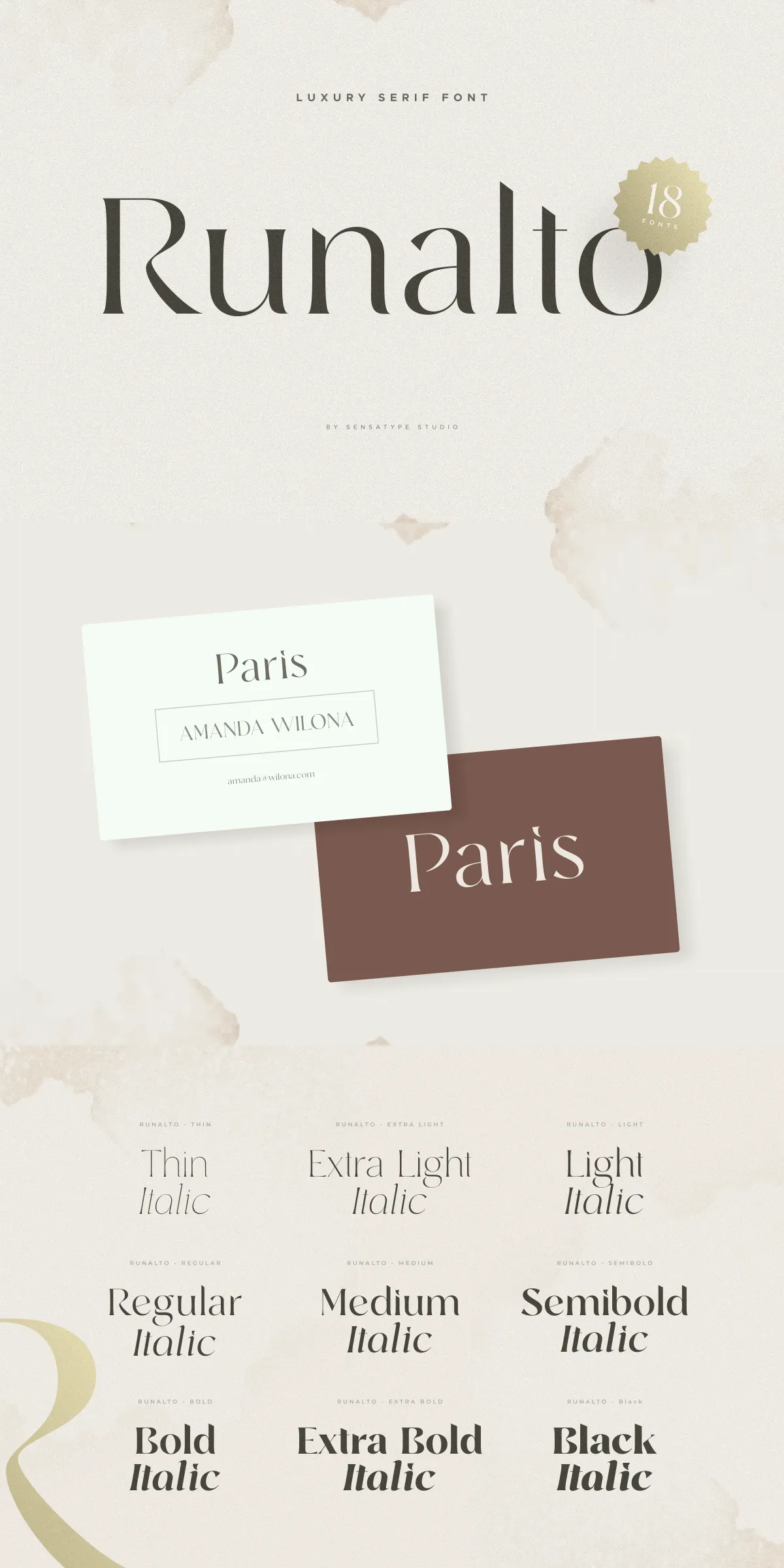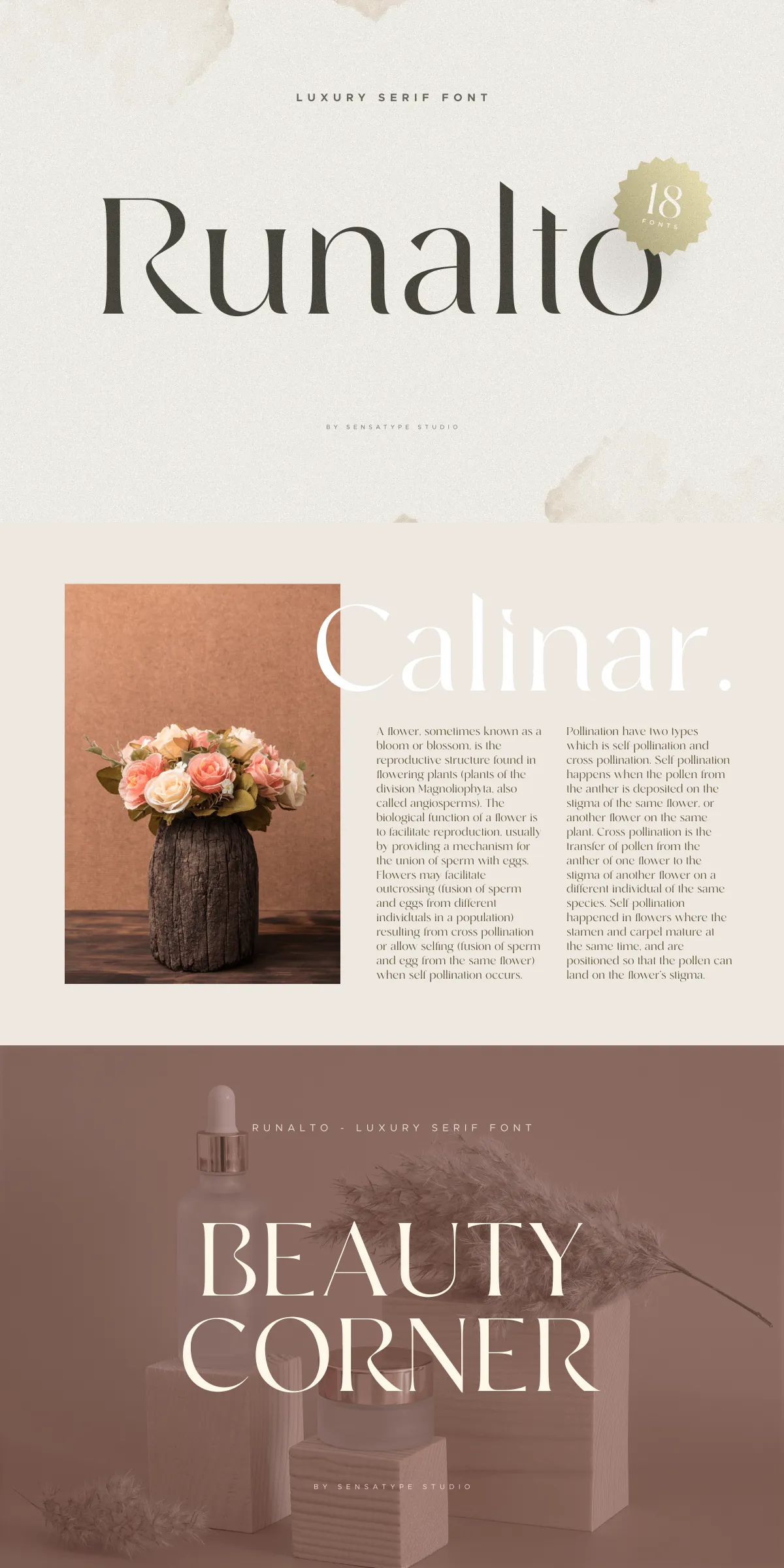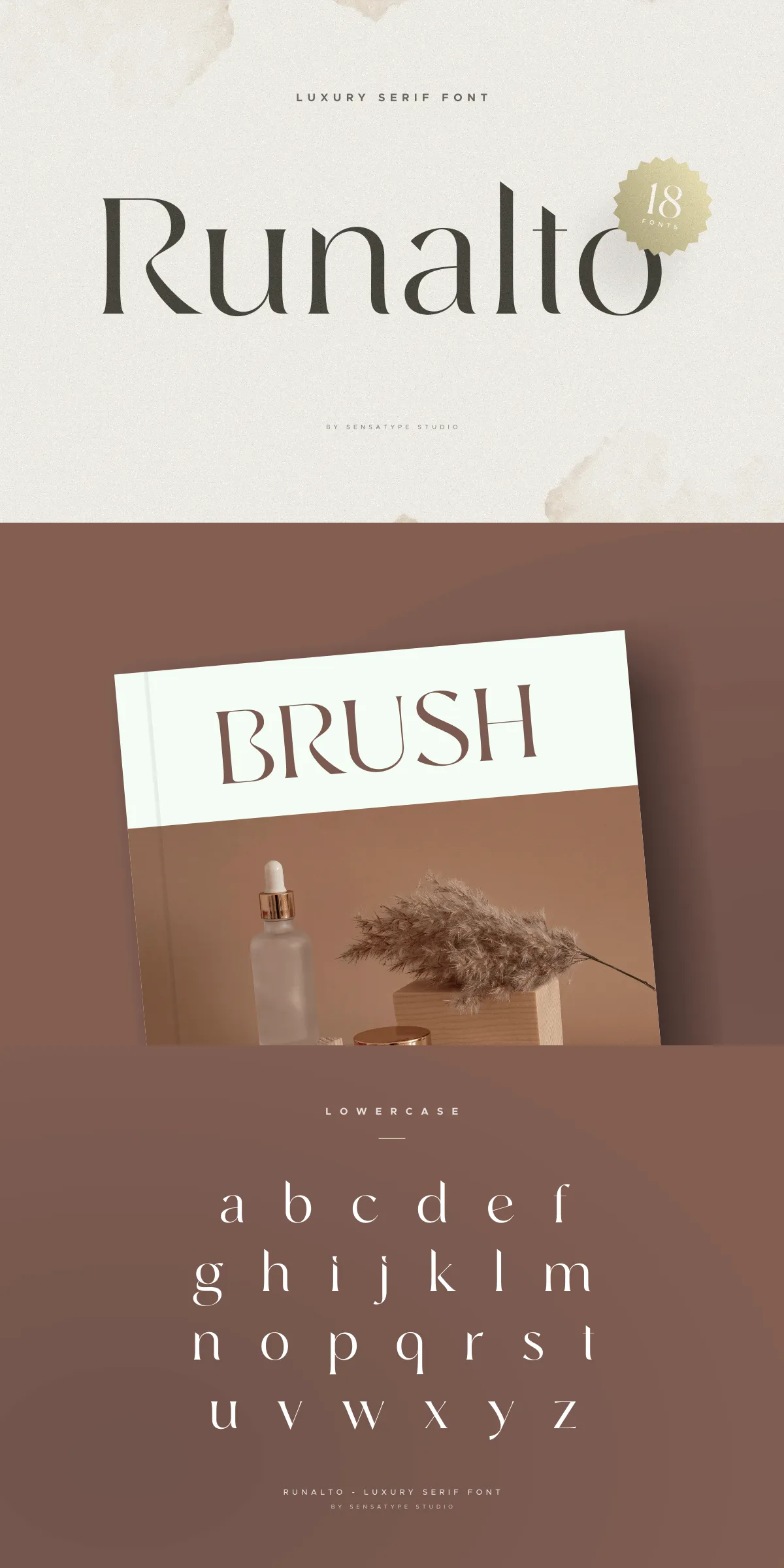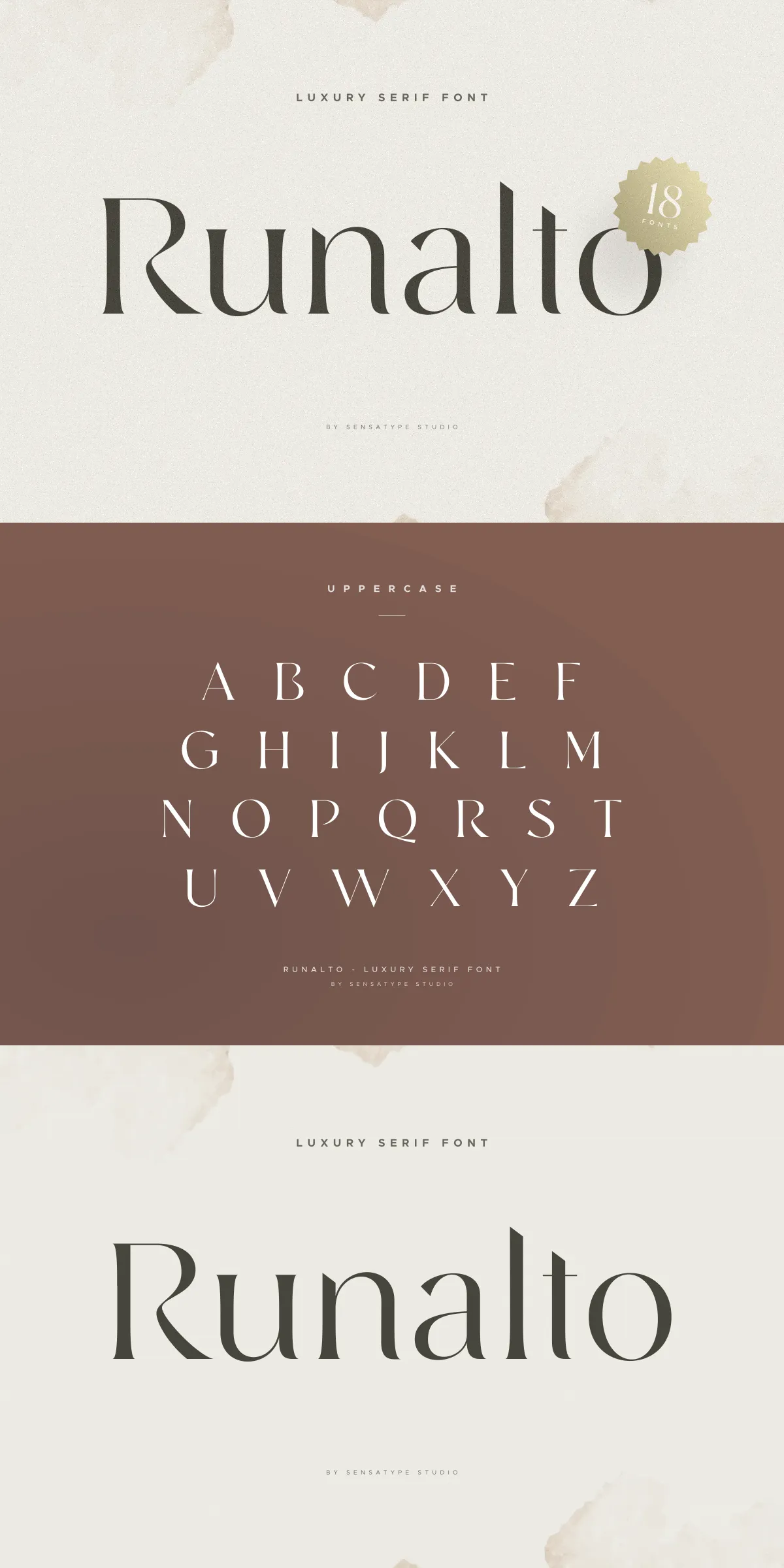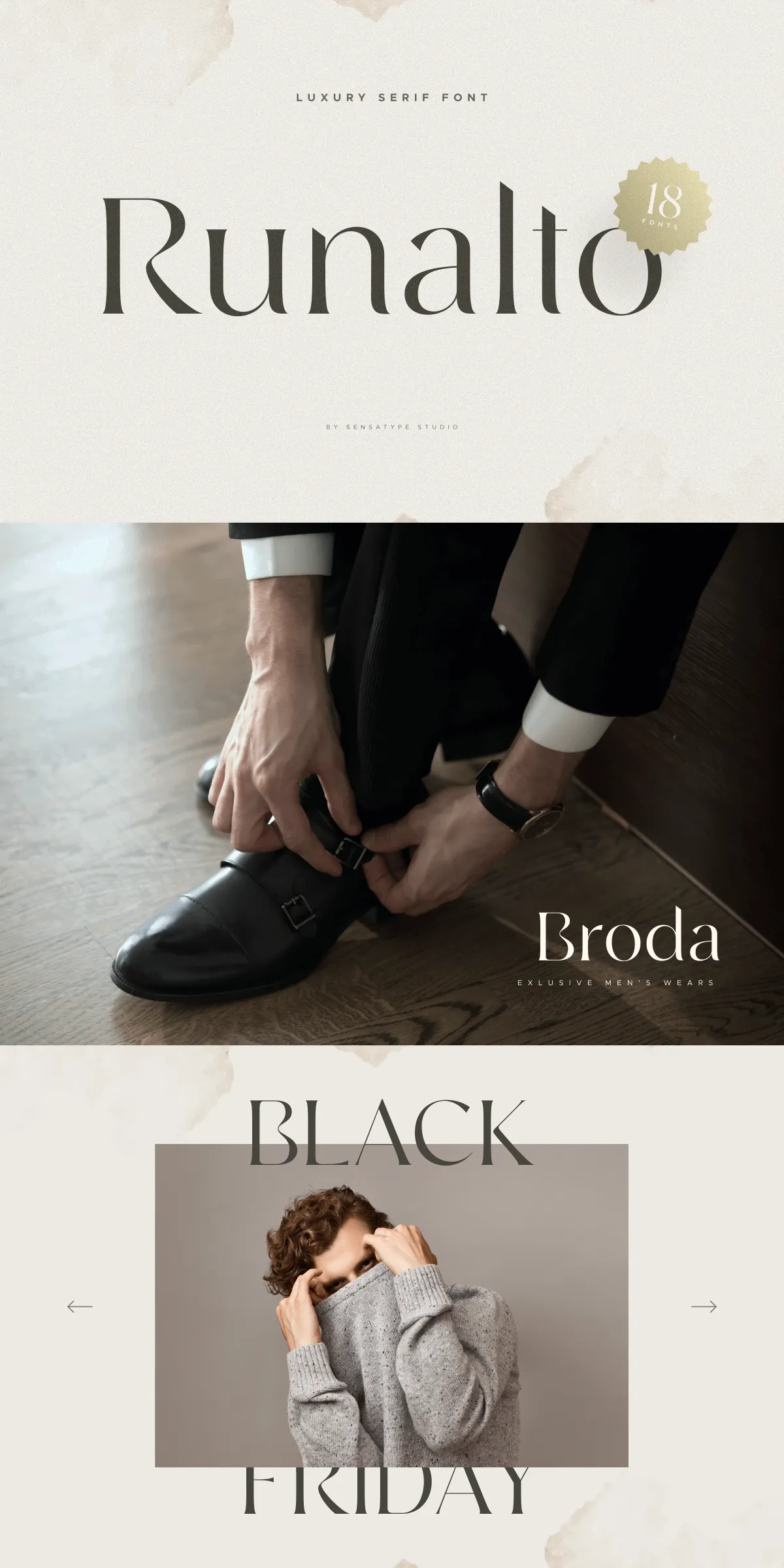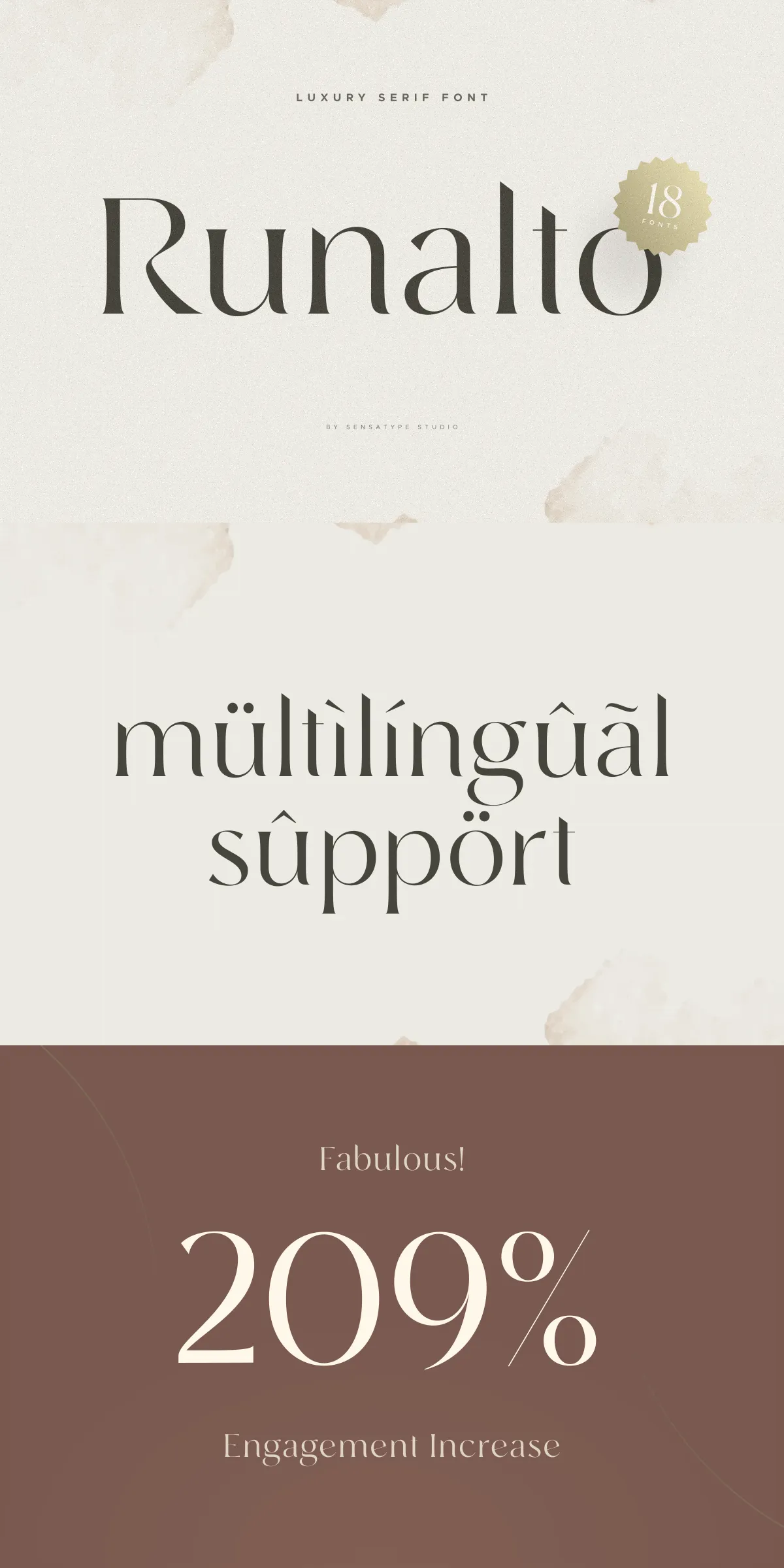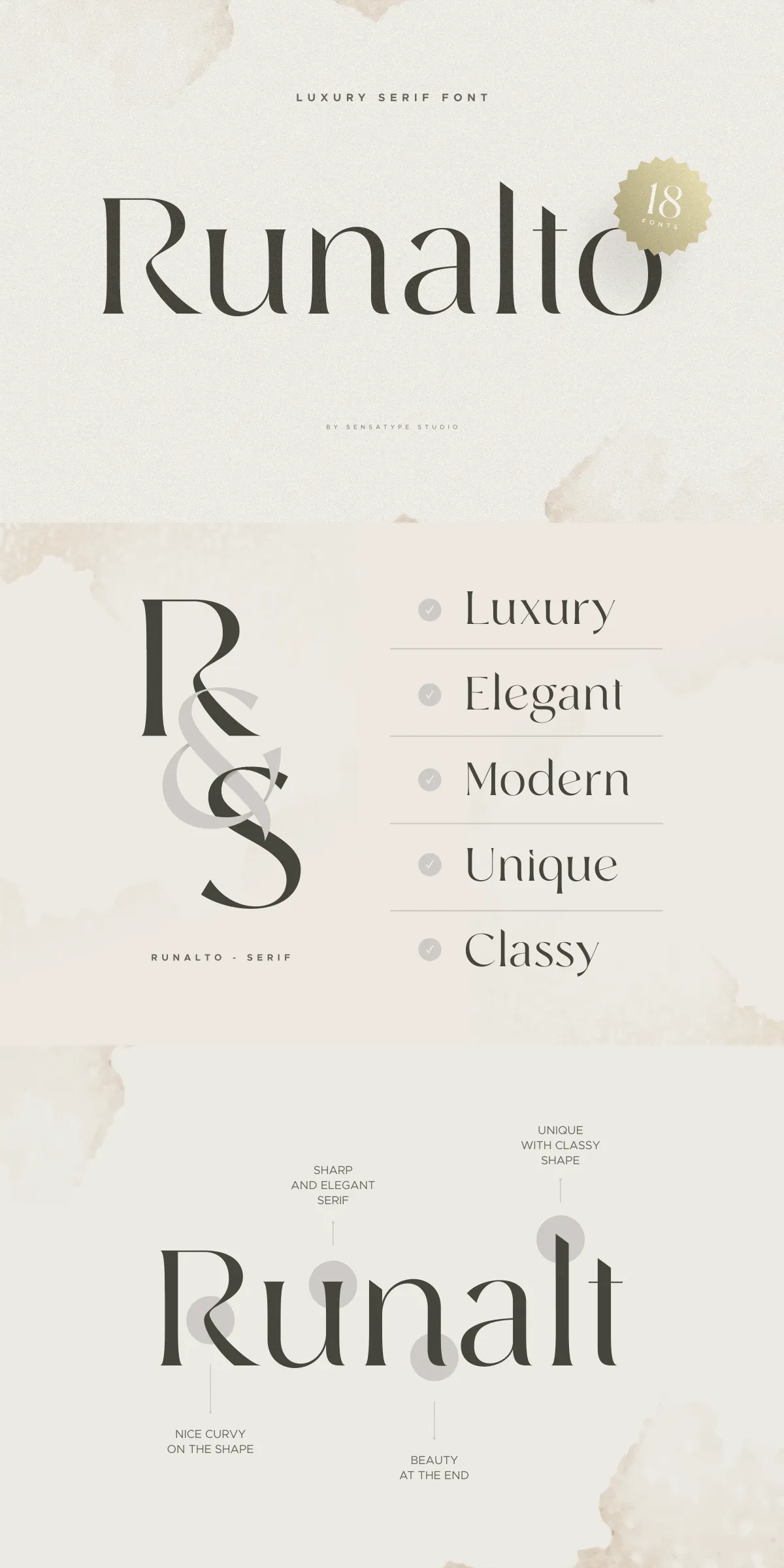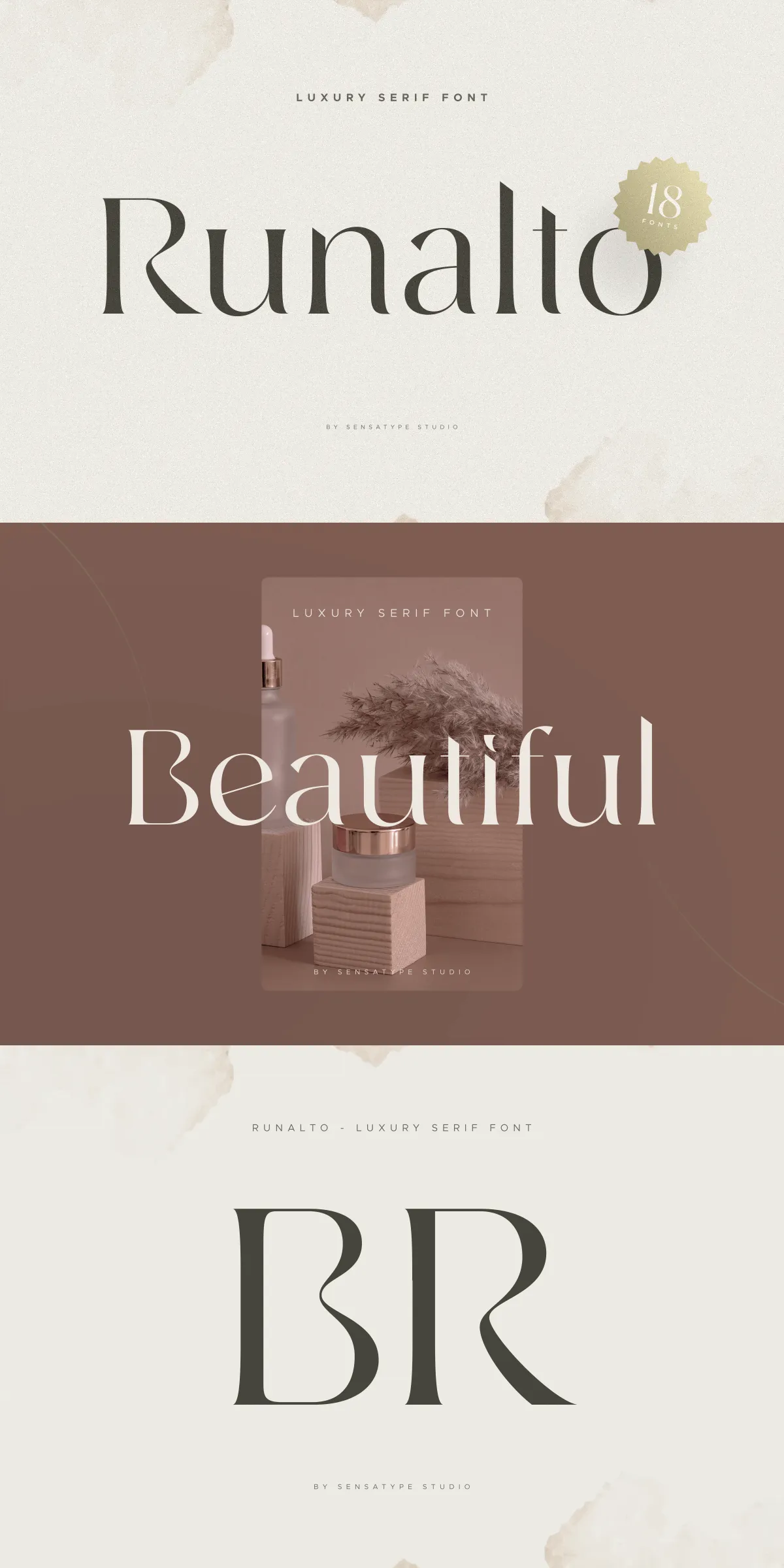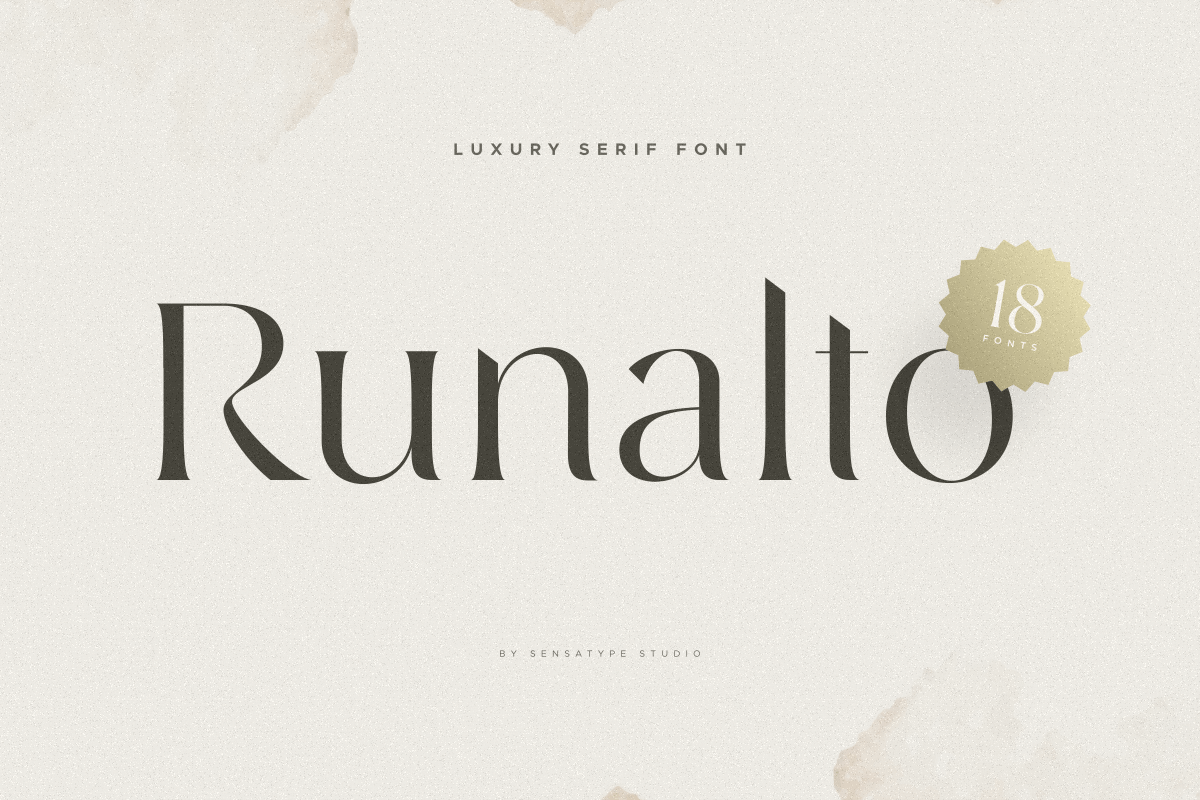
Command attention and captivate audiences with Runalto — a display serif font engineered for luxury aesthetics, modern sophistication, and unforgettable visual impact. Designed for creators who demand distinction, Runalto transforms ordinary text into bold statements of style across high-end branding, editorial design, digital visuals, and premium identity projects.
Where Modern Luxury Meets Timeless Refinement
Runalto isn’t just a font — it’s a design philosophy in typographic form. Its fluid serifs, balanced proportions, and finely tuned stroke contrast exude elegant exclusivity, making it ideal for projects that require a refined presence. Whether you’re developing a luxury brand identity, crafting a high-fashion magazine spread, or designing social media content that radiates prestige, Runalto delivers instant sophistication with every character.
- Modern Elegance — Clean yet expressive, blending classic serif roots with contemporary polish.
- Luxury Appeal — Tailored for upscale projects, from premium product packaging to editorial features.
- Classy Visual Impact — Stand out in digital and print with a font that speaks authority and taste.
Full-Featured for Every Creative Need
Runalto comes equipped with a comprehensive character set, ensuring it fits seamlessly into any project — global or local. It’s not just beautiful, it’s built for real-world versatility.
- Complete Uppercase & Lowercase Letters — All standard letters are meticulously crafted for legibility and style.
- Full Multilingual Support — Includes extended Latin characters for French, German, Spanish, Italian, and other major European languages.
- Intelligent Numerals & Punctuation — Perfectly sized and positioned for clean, professional layouts.
- Advanced Typographic Features — Access to ligatures, stylistic alternates, and expert glyphs for design precision.
Use Runalto in all caps for dramatic headlines, or lowercase for refined body text — it adapts with confidence and grace.
From branding to editorial design, from social media graphics to logo creation — Runalto fits perfectly into any workflow.
Applications That Demand Perfection
Runalto shines in projects where every detail matters. Here’s where it truly makes a difference:
- Luxury Branding & Identity — Define your brand with a font that feels exclusive and high-caliber.
- High-End Magazine Layouts — Elevate fashion, lifestyle, and editorial content with a typographic voice that whispers luxury.
- Social Media Campaigns — Create eye-catching, premium-looking posts, stories, and ads that stop the scroll.
- Logo & Monogram Design — Craft iconic marks that communicate elegance and permanence.
- Event Invitations & Packaging — Design unforgettable wedding, gala, or product launches with a premium feel.
Runalto doesn’t just support your vision — it elevates it to a new standard of refinement.